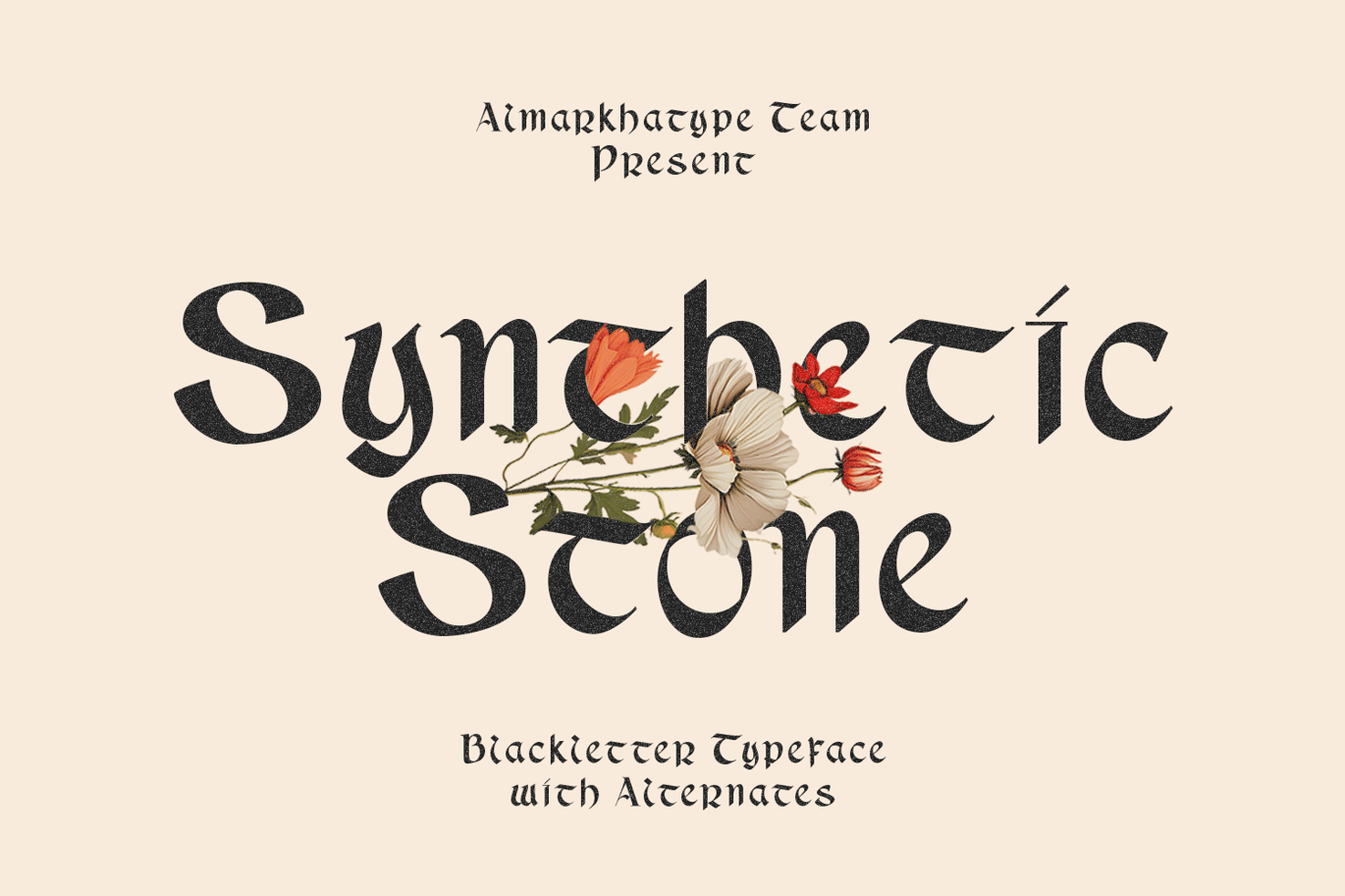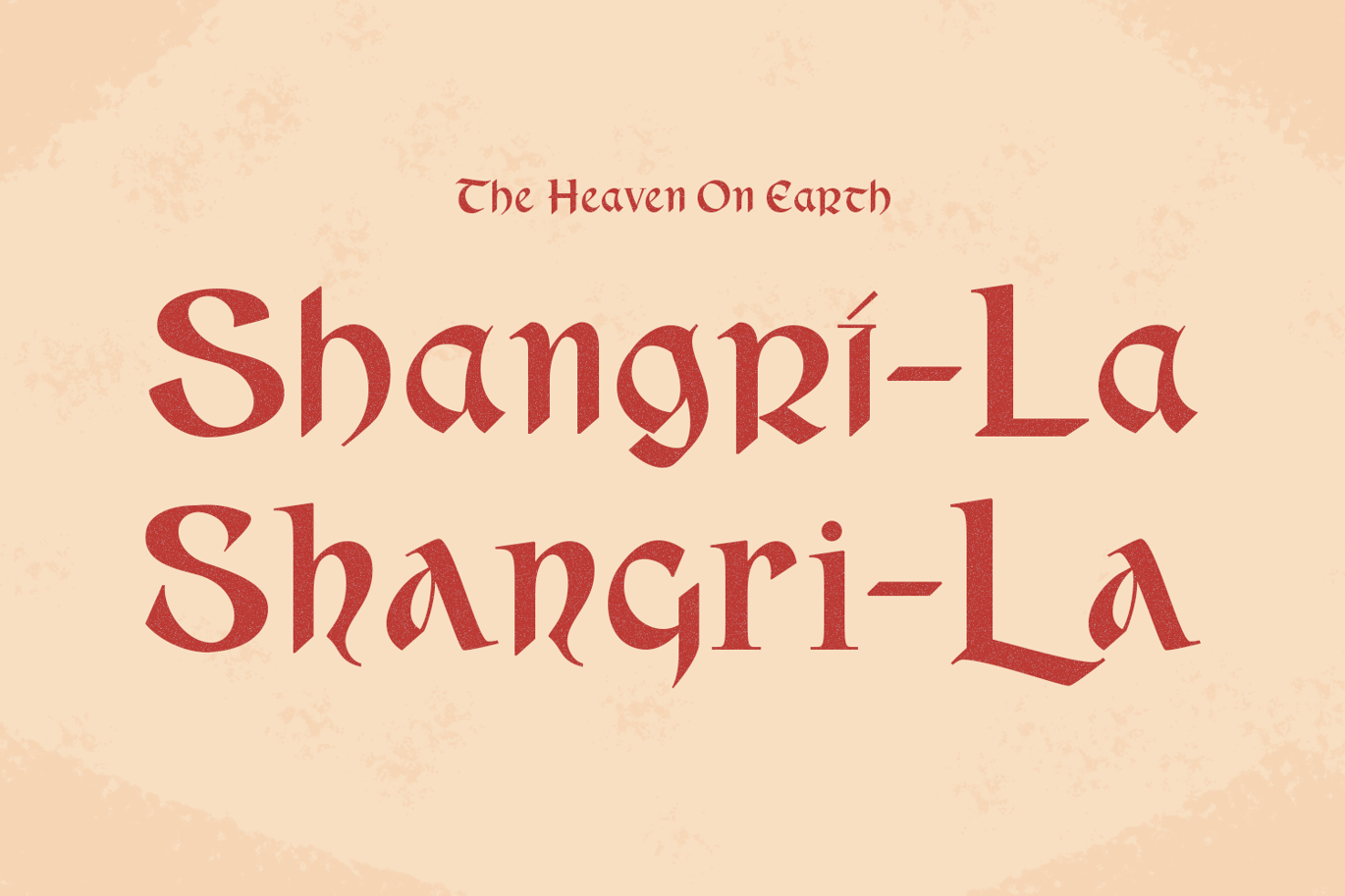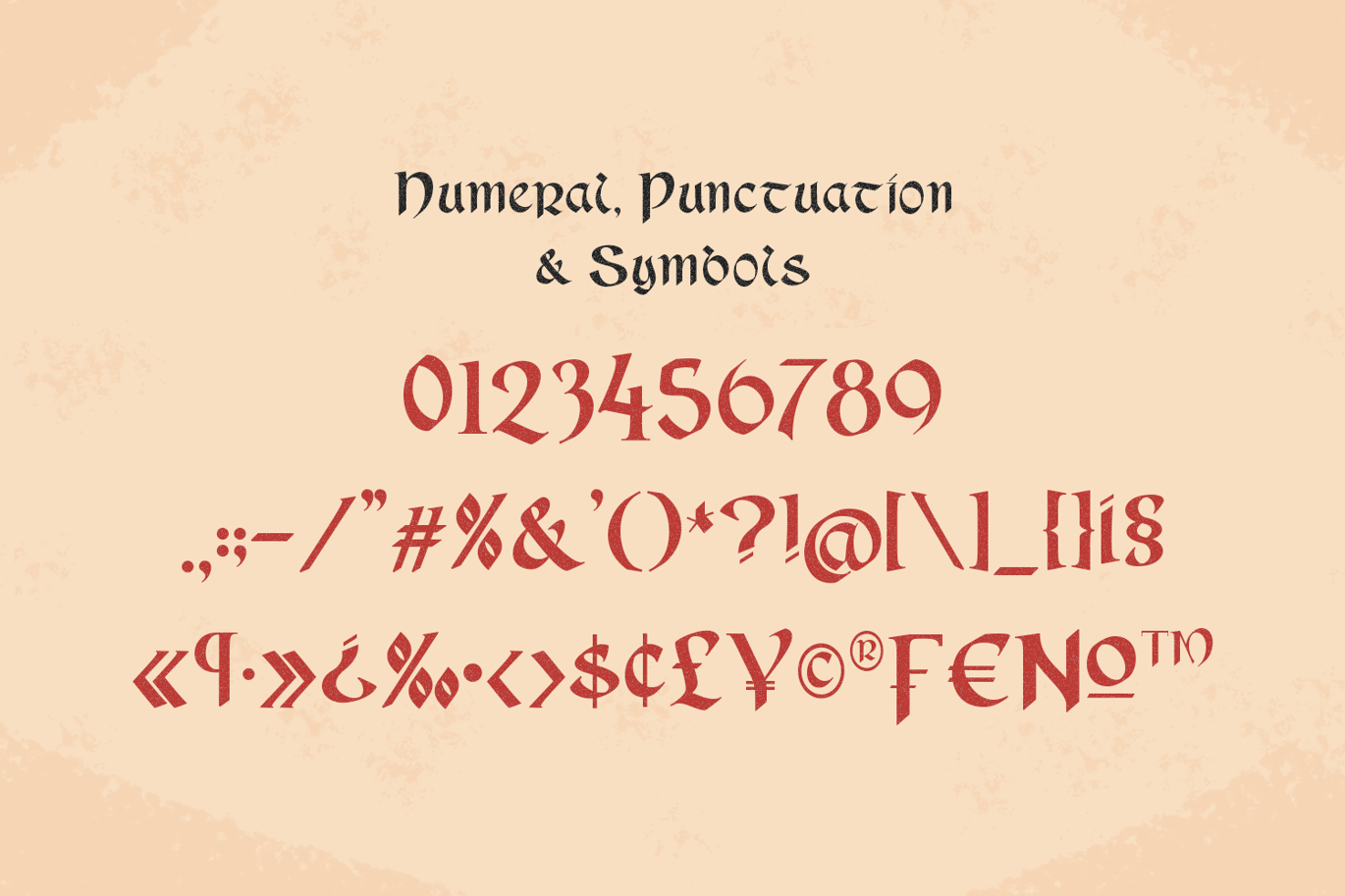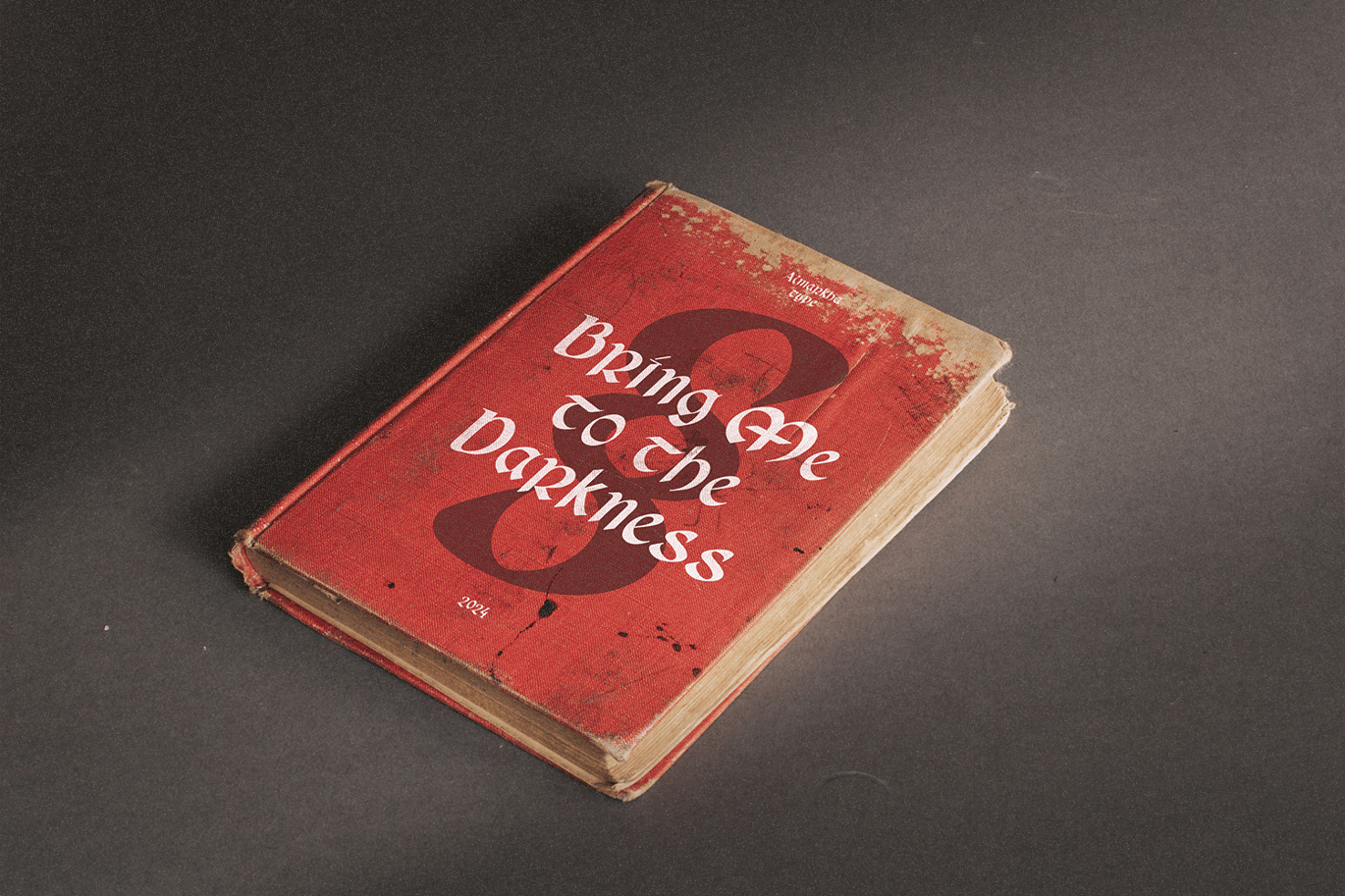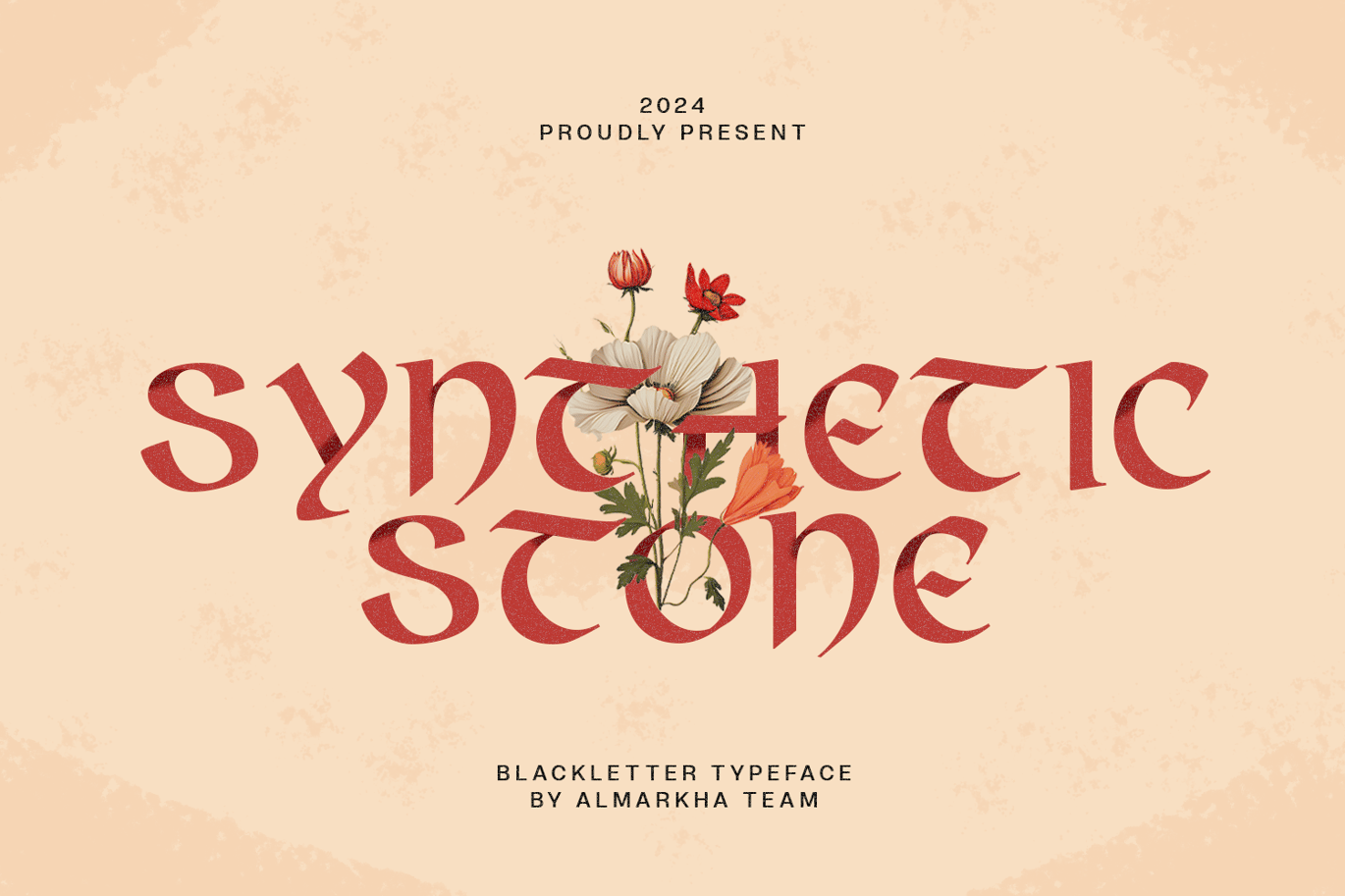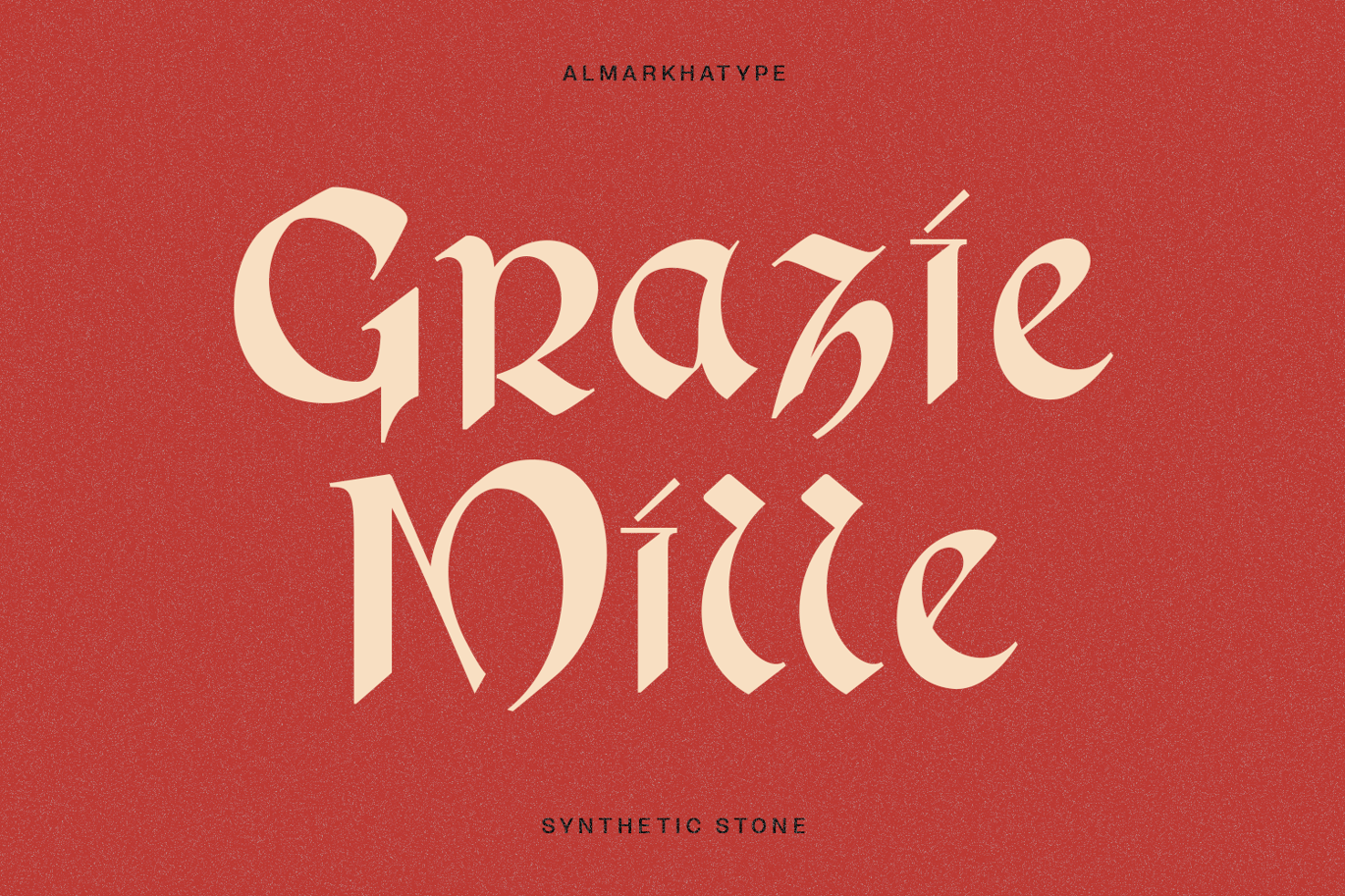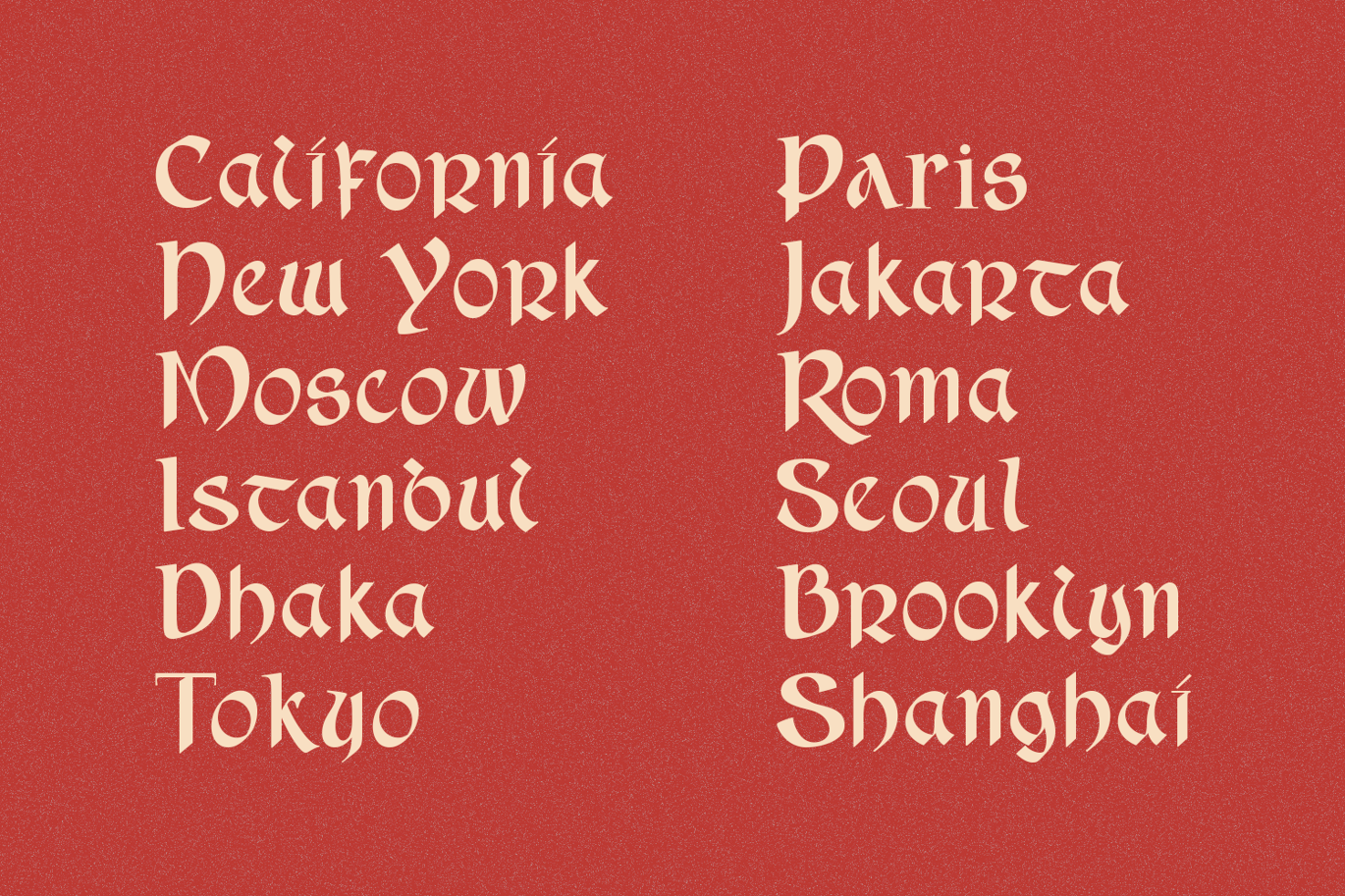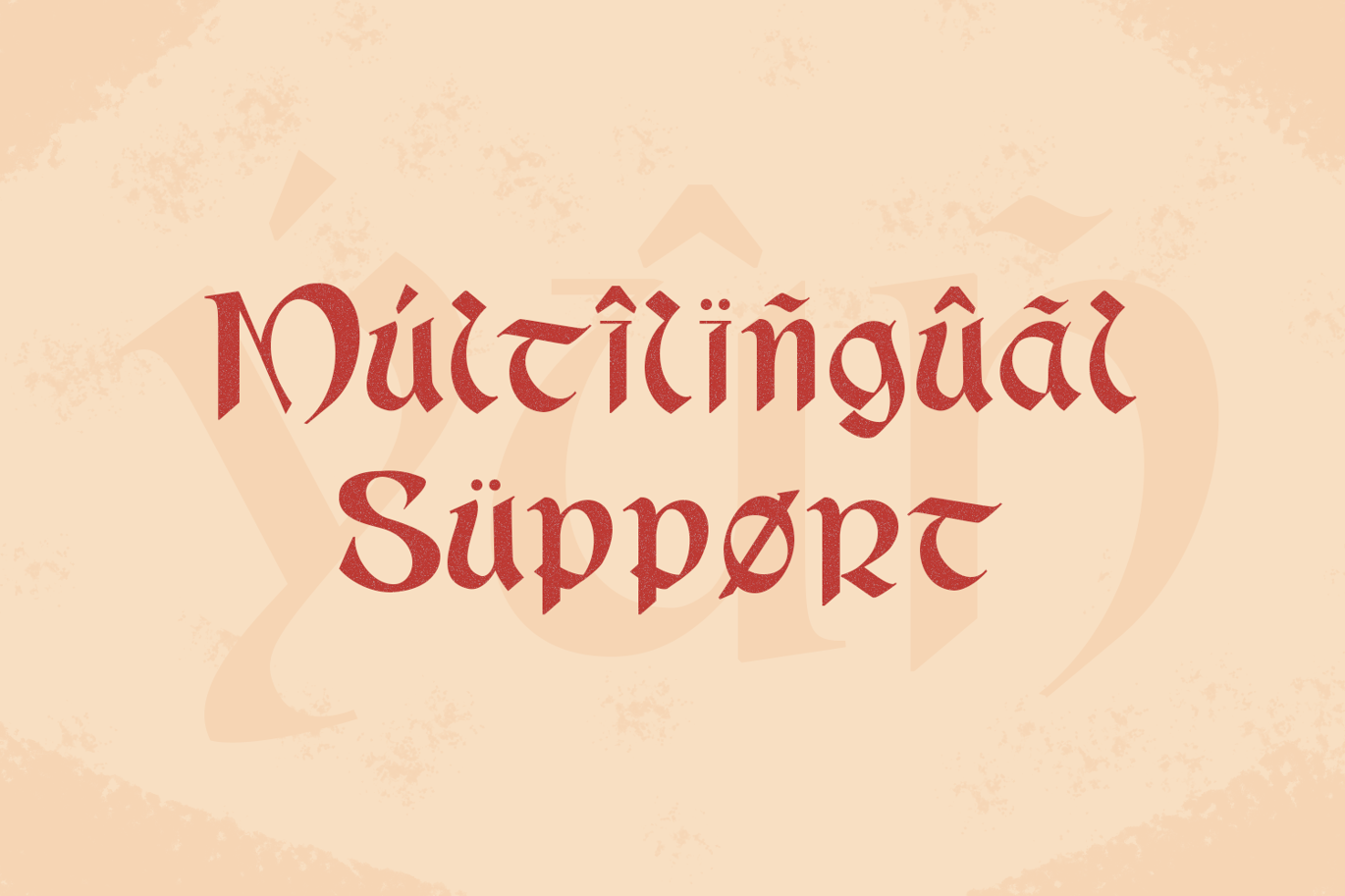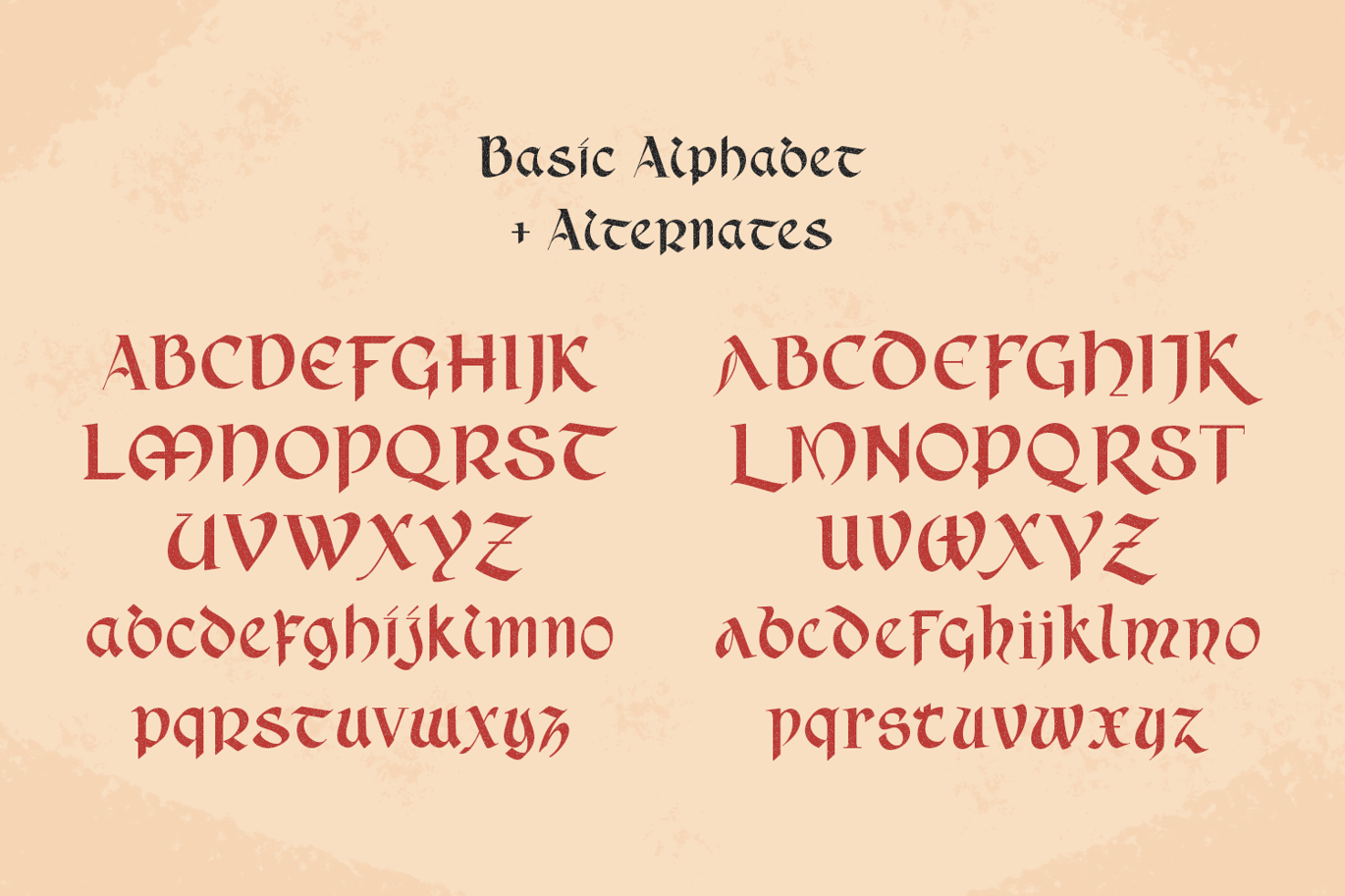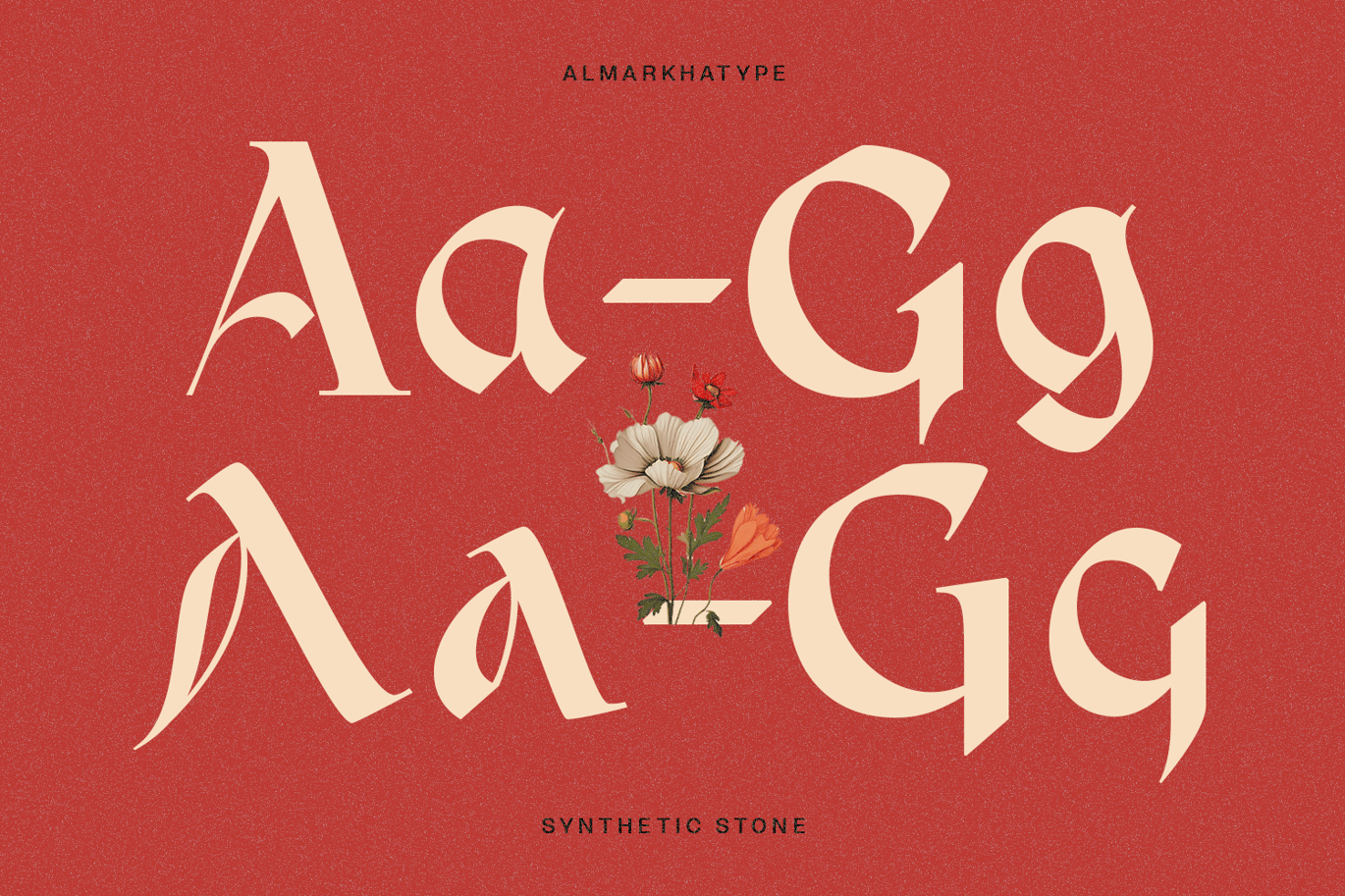
Synthetic Stone – Medieval Crafted Font
Introducing Synthetic Stone – a beautifully crafted typeface inspired by the historic elegance of uncial script. Rooted in the rich tradition of early medieval manuscripts, Synthetic Stone captures the timeless essence of this ancient calligraphic style, bringing a touch of classic sophistication to modern design. Drawing from the rich history of uncial script, which was prominent from the 3rd to 8th centuries, Synthetic Stone reflects the artistry and craftsmanship of early scribes. This typeface pays homage to the elegance of ancient manuscripts while offering a modern twist that makes it relevant for today’s designers. Perfect for a wide range of applications, from book covers and editorial designs to logos and branding, Synthetic Stone offers a unique blend of old-world charm and modern versatility. Comprehensive set of glyphs, including both uppercase and lowercase letters, numerals, punctuation, and special characters to meet diverse typographic needs.
Synthetic Stone is ideal for projects that seek to convey a sense of tradition, heritage, and sophistication. Its uncial-inspired design makes it a perfect choice for:
- Historical novels and literature
- Religious and spiritual publications
- Branding for artisanal products and businesses
- Event invitations and programs
- Decorative prints and posters
Language Support: Extensive language support, covering Latin-based languages and more.
Kerning: Carefully kerned for optimal spacing and readability.